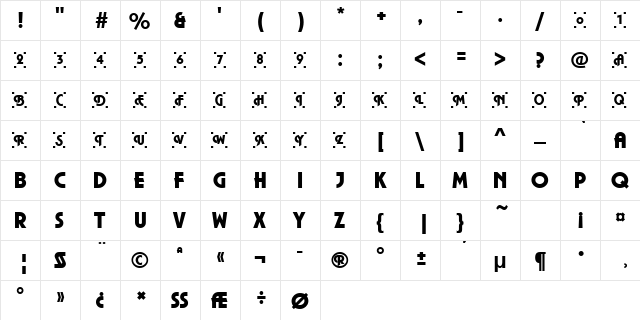
URWPlanaCamDUlt Regular
URWPlanaCamDUlt is a composed and adaptable typeface that performs quietly and consistently across a wide range of design contexts.